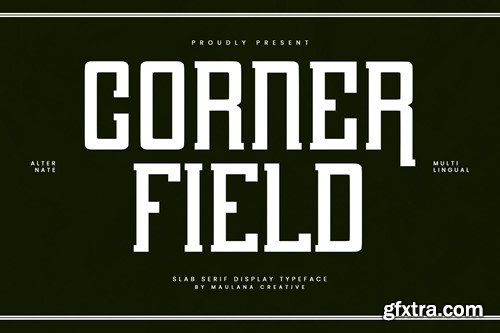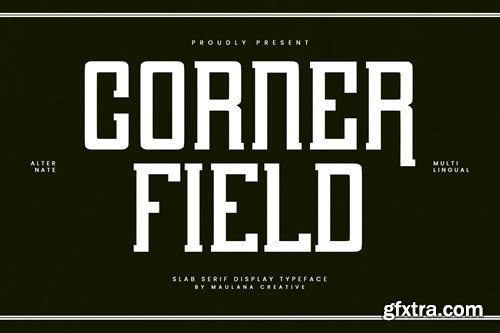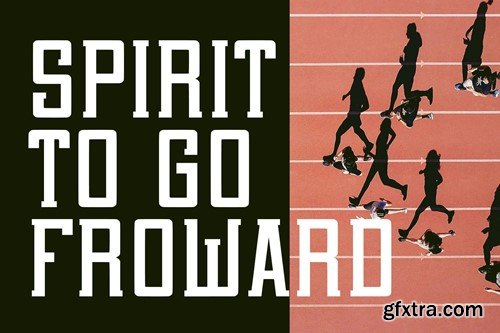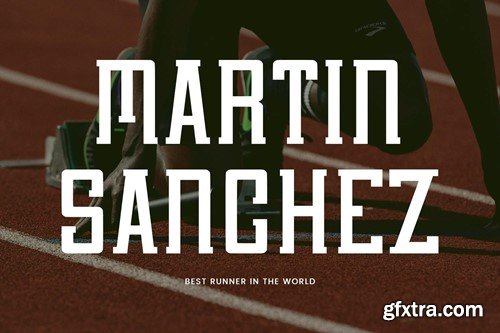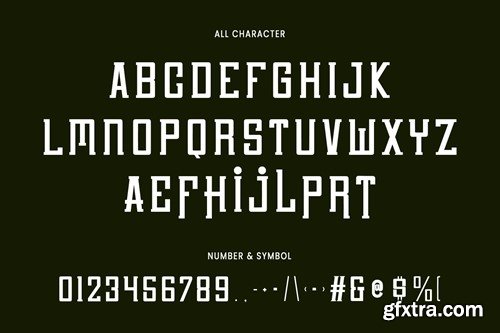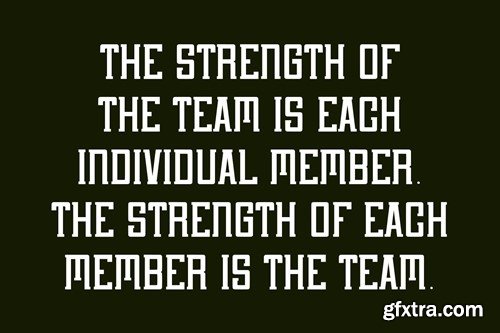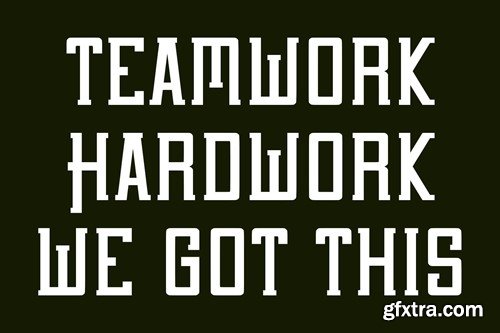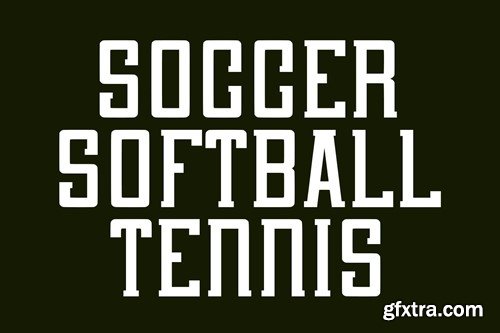
Corner Field Slab Serif Display Font
Corner Field slab serif display font. Heavy stroke, fun character with a bit of ligatures. To give you an extra creative work. Corner Field slab serif display font support multilingual more than 100+ language. This font is good for logo design, Social media, Movie Titles, Books Titles, a short text even a long text letter and good for your secondary text font with script or serif. Make a stunning work with Corner Field slab serif display font. What you get: Cheers, Maulana Creative